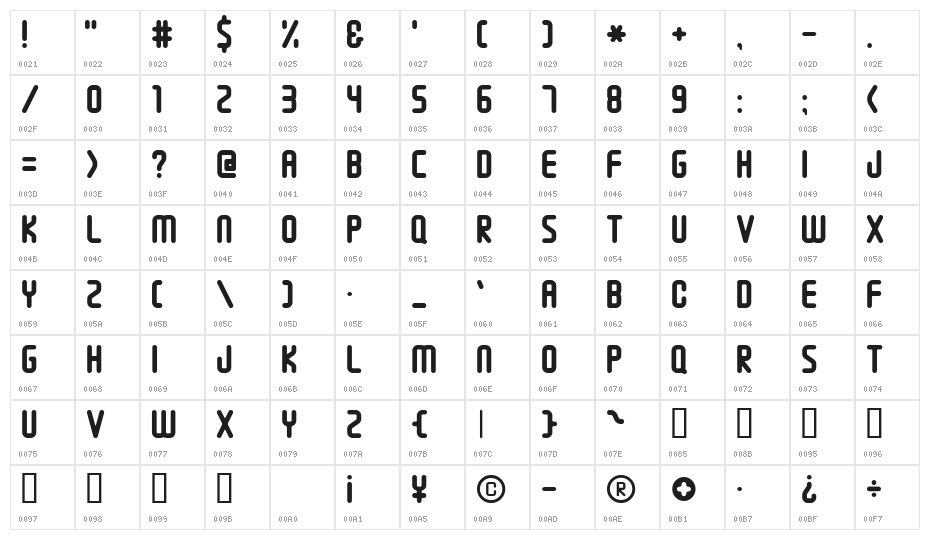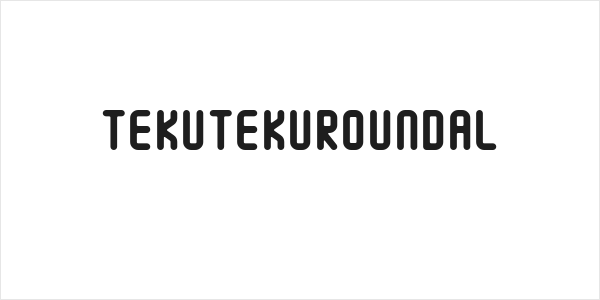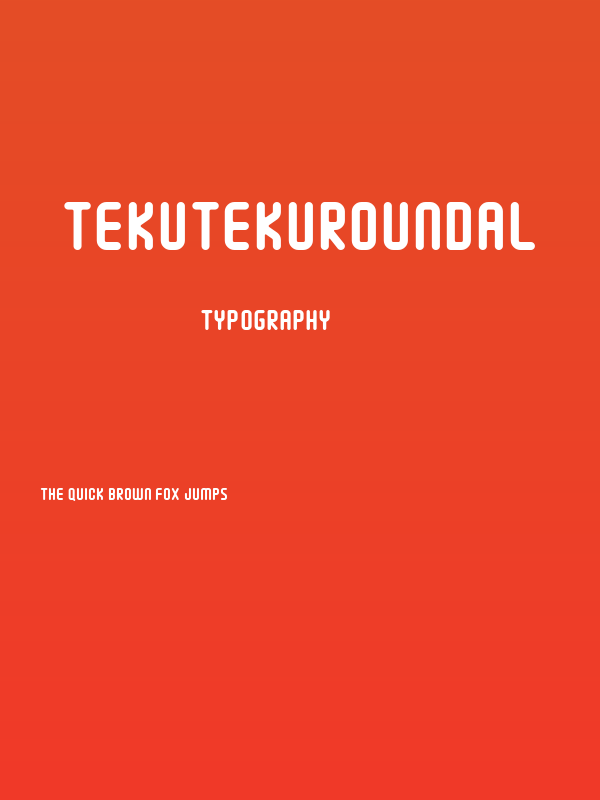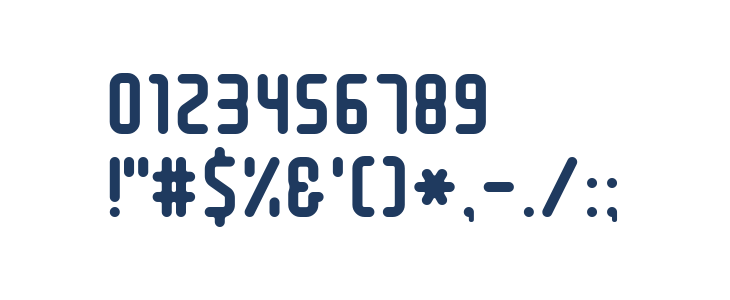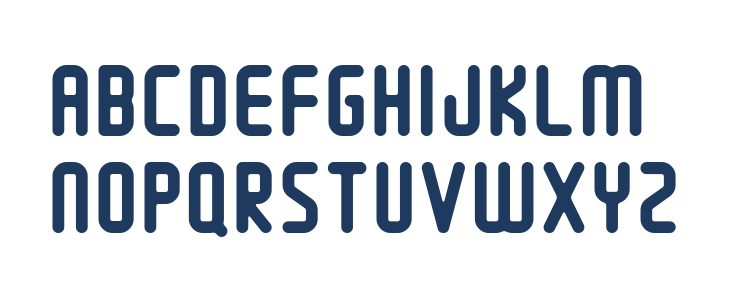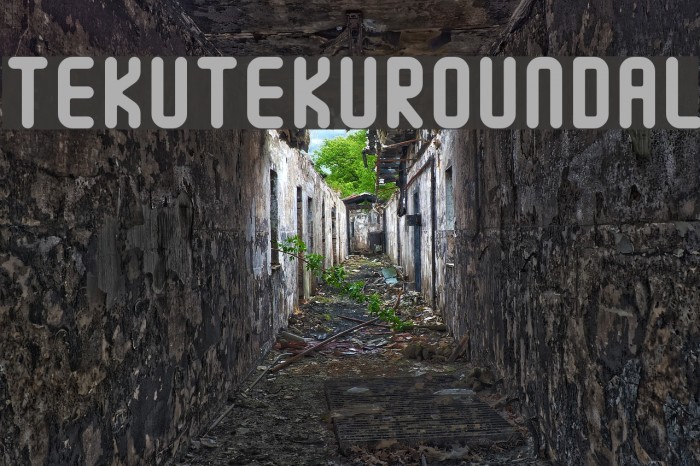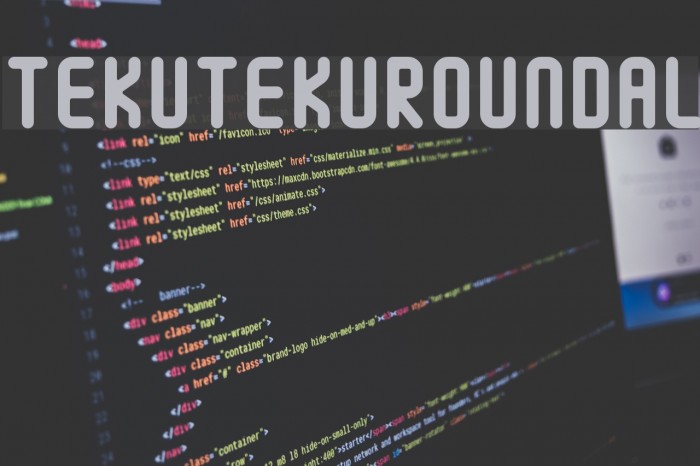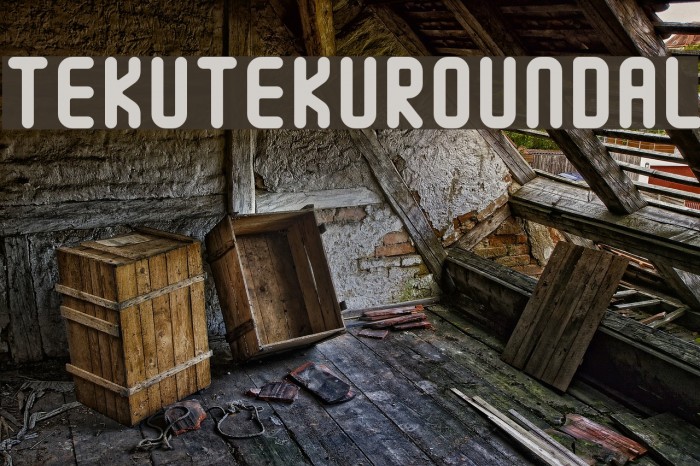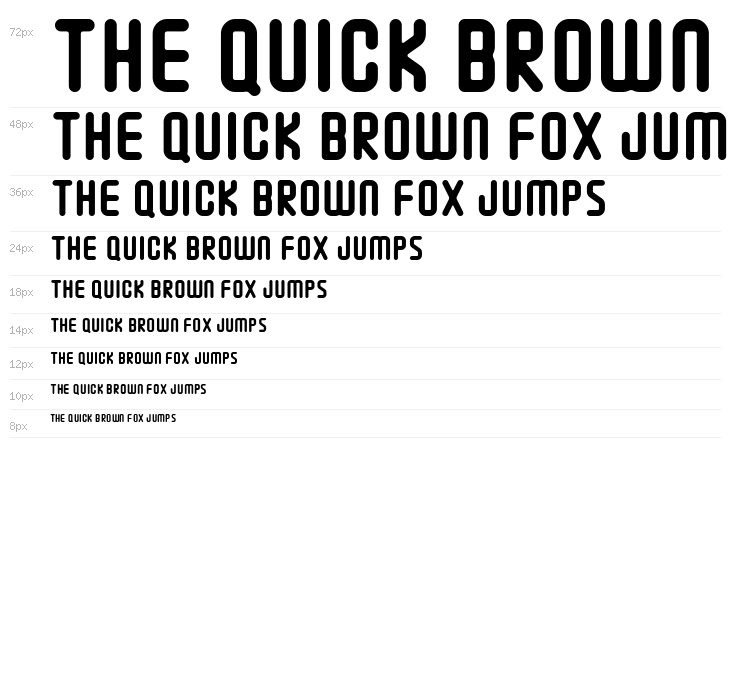
TekutekuRoundAl Font
TekutekuRoundAl Description
This font features a rounded, geometric style with uniform stroke widths, giving it a modern and approachable appearance. The characters are bold and slightly condensed, with smooth curves and a consistent line thickness that enhances readability. The design is clean and minimalistic, making it suitable for various applications where a friendly yet professional look is desired. The numerals and special characters maintain the same rounded aesthetic, ensuring cohesion across all elements.
| Use Case | Headlines, Logos, Signage |
| Proposed Projects | Ideal for branding, signage, packaging, and digital interfaces where a modern and friendly look is needed. |